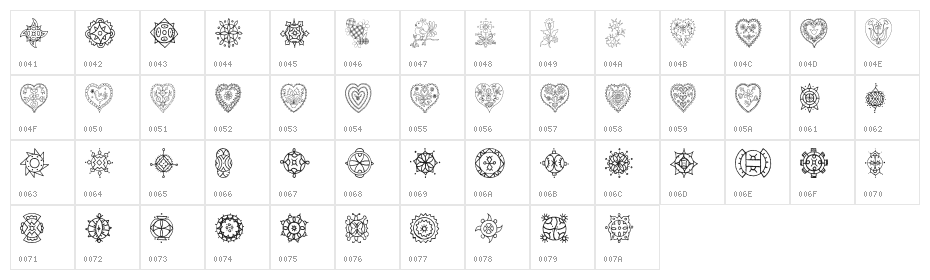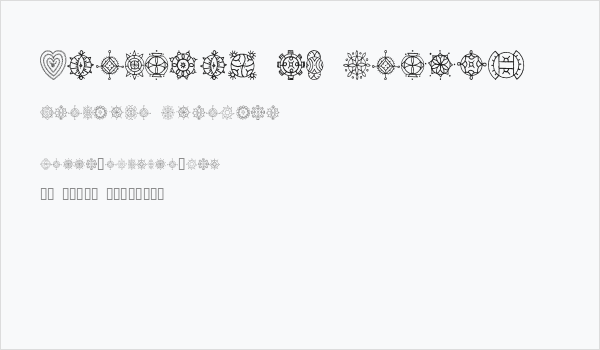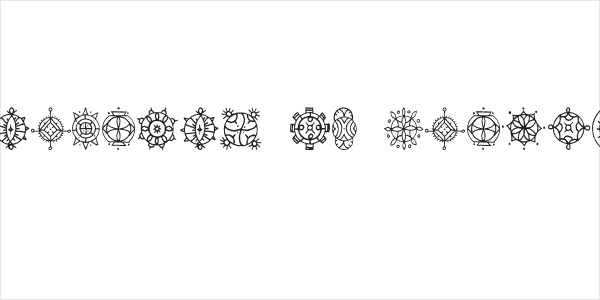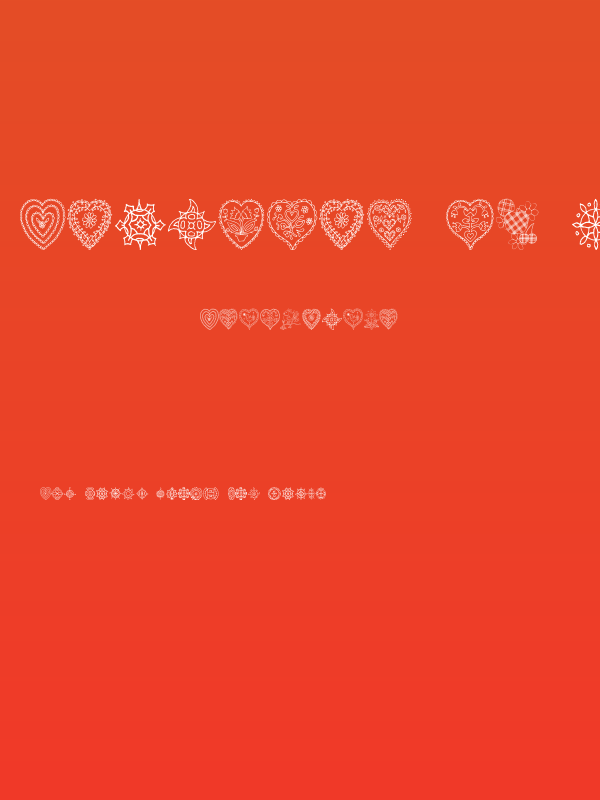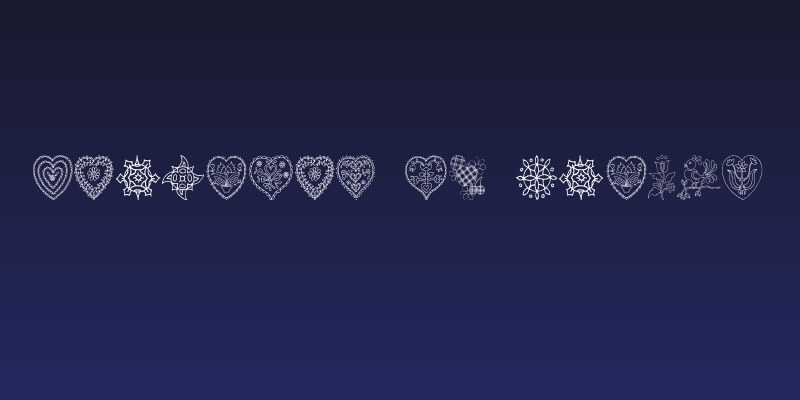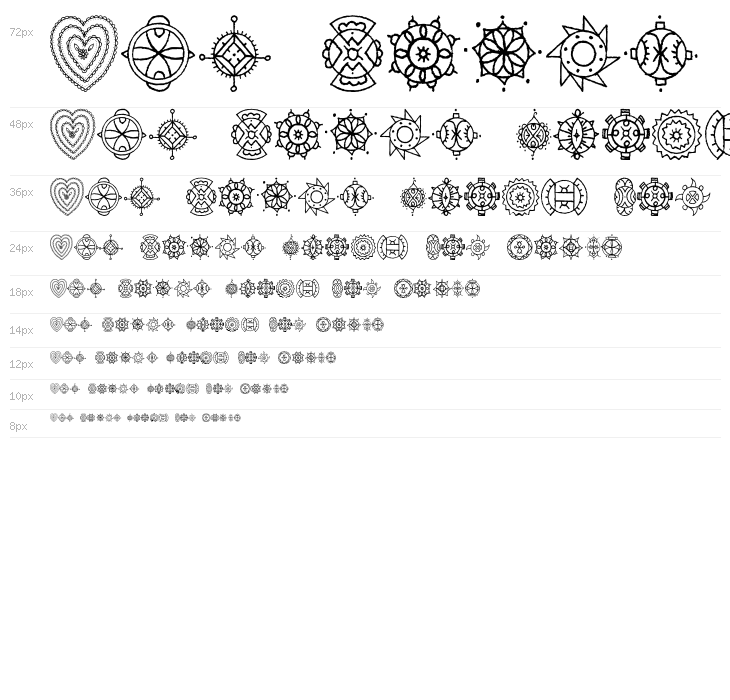
Treasury of Design Font
Treasury of Design Description
A decorative dingbat and symbol set featuring intricate, hand-drawn motifs including hearts, flowers, geometric shapes, and ornamental designs. The glyphs are highly detailed and vary in complexity, with some resembling folk art or tattoo-style illustrations. The set also includes simple rectangular frames in bold and regular weights.
| Overall Style | Decorative, Folk, Ornamental |
| Use Case | Decorative elements, Borders, Accents, Craft projects |
| Proposed Projects | Invitations, greeting cards, scrapbooking, decorative borders, logo embellishments, tattoo design references. |